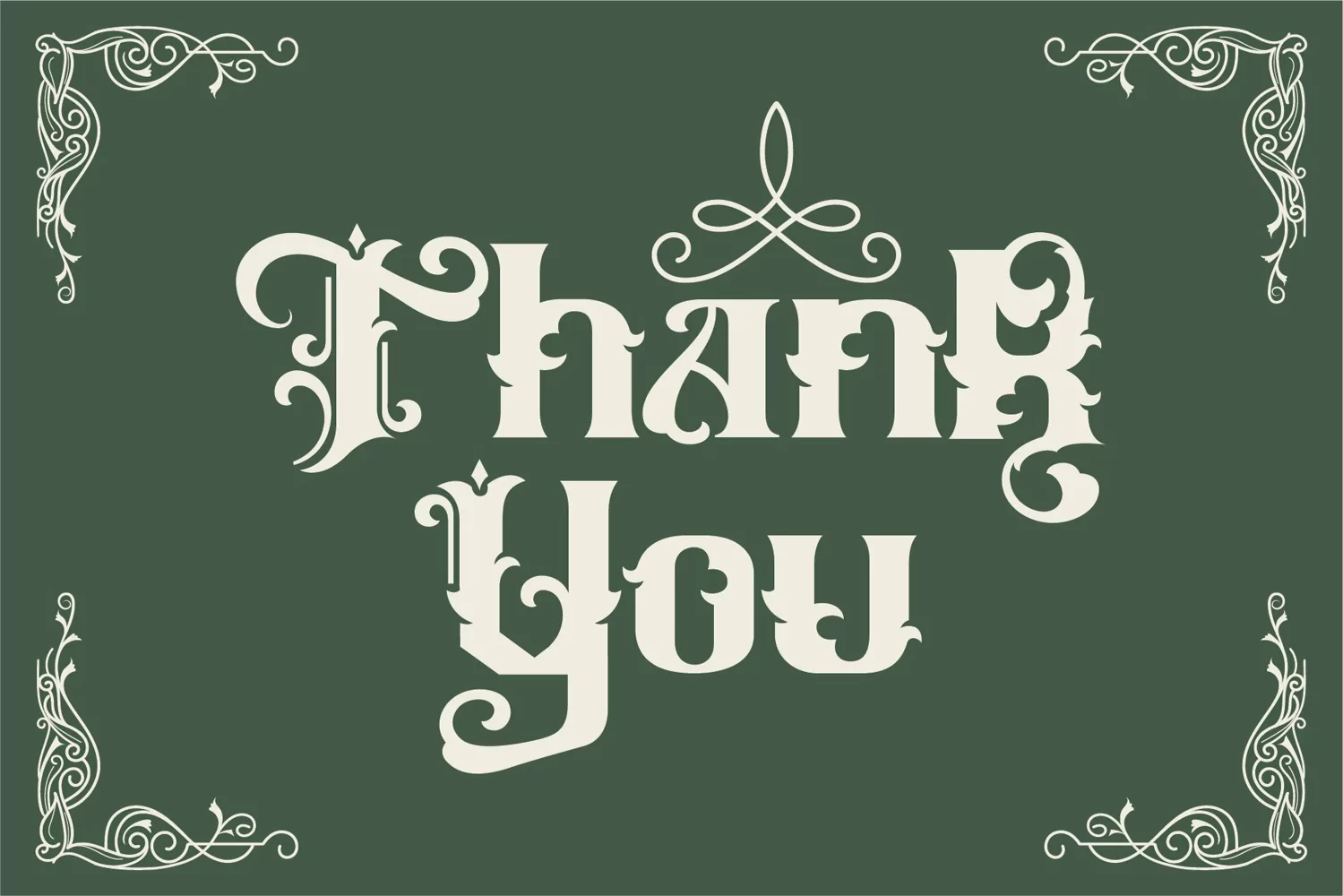
Karlfinch - Vintage Font
If you looking for strong font for display or title this item is a great choice to make your design authentic.
Karlfinch font has 184 character glyphs included the multilingual and alternate glyphs, the alternate glyphs will make your design more decorative.